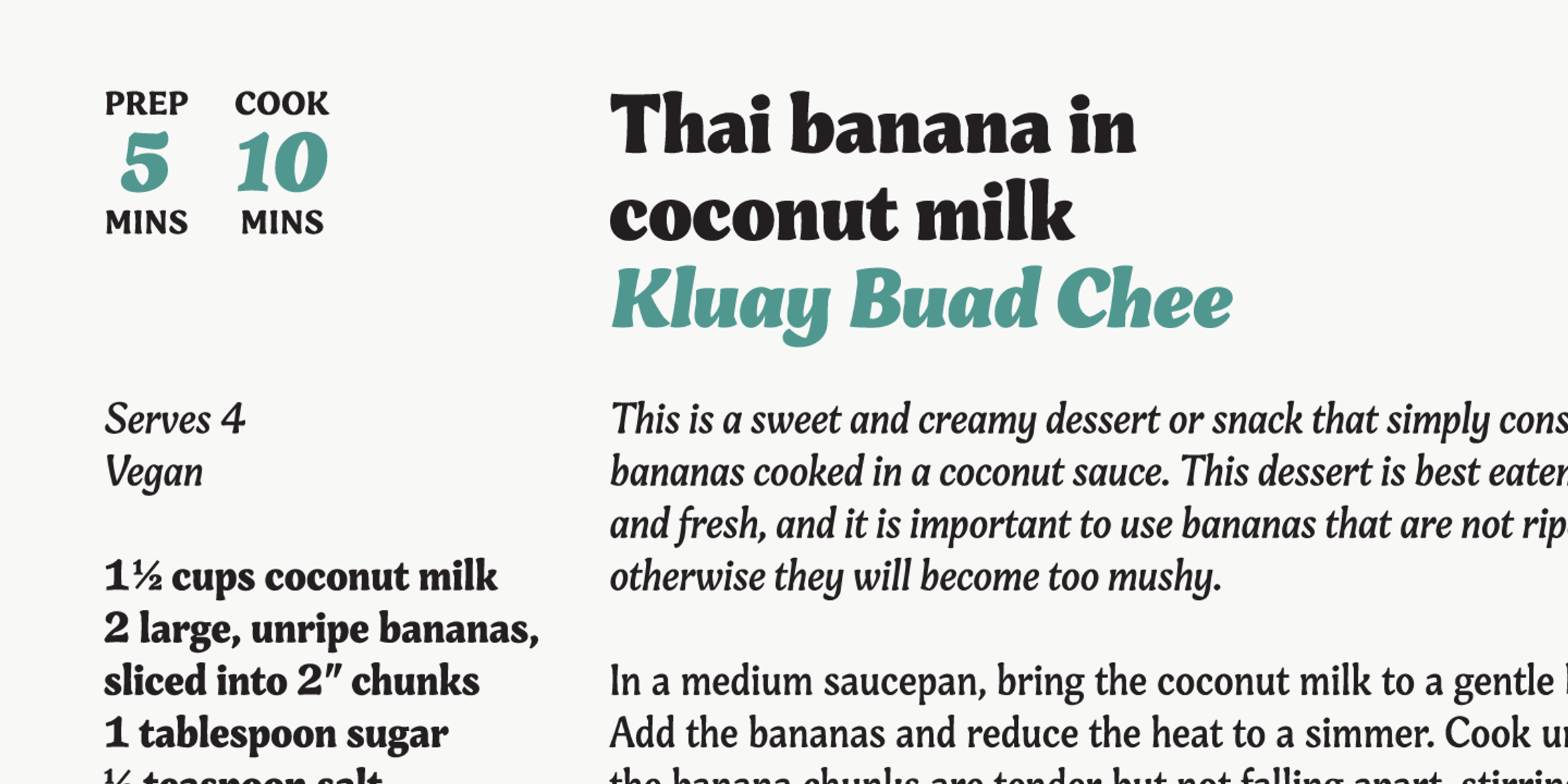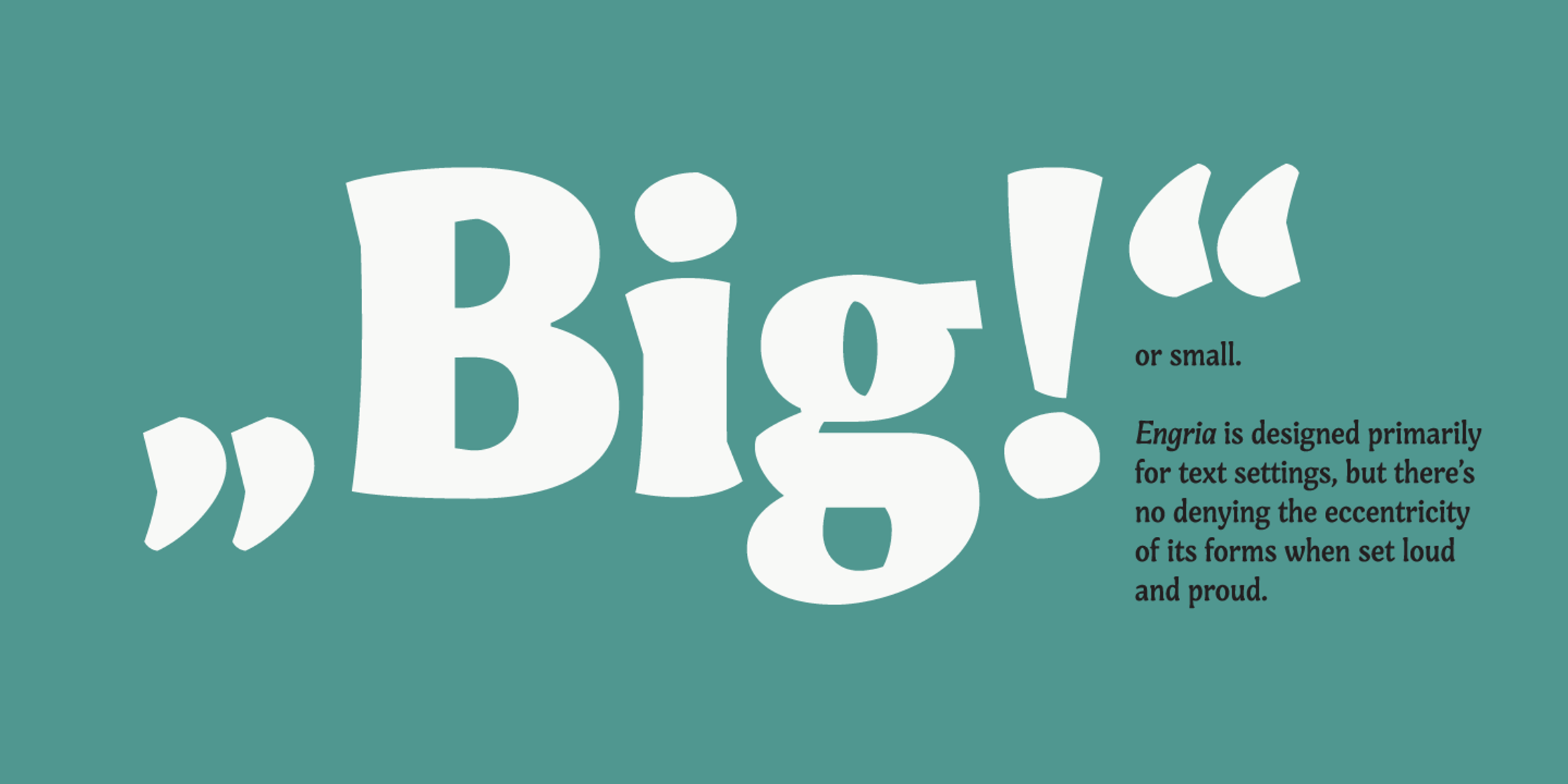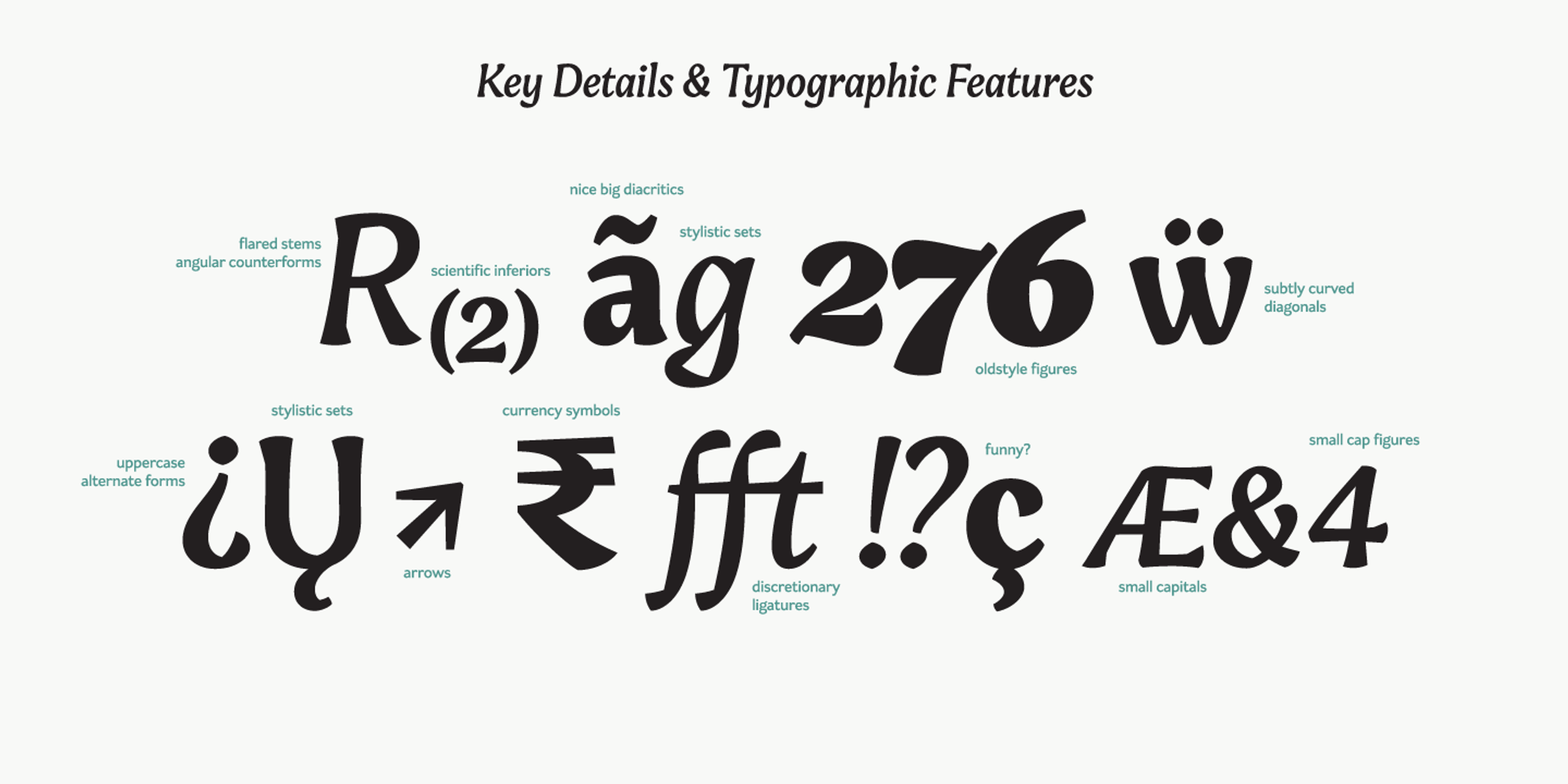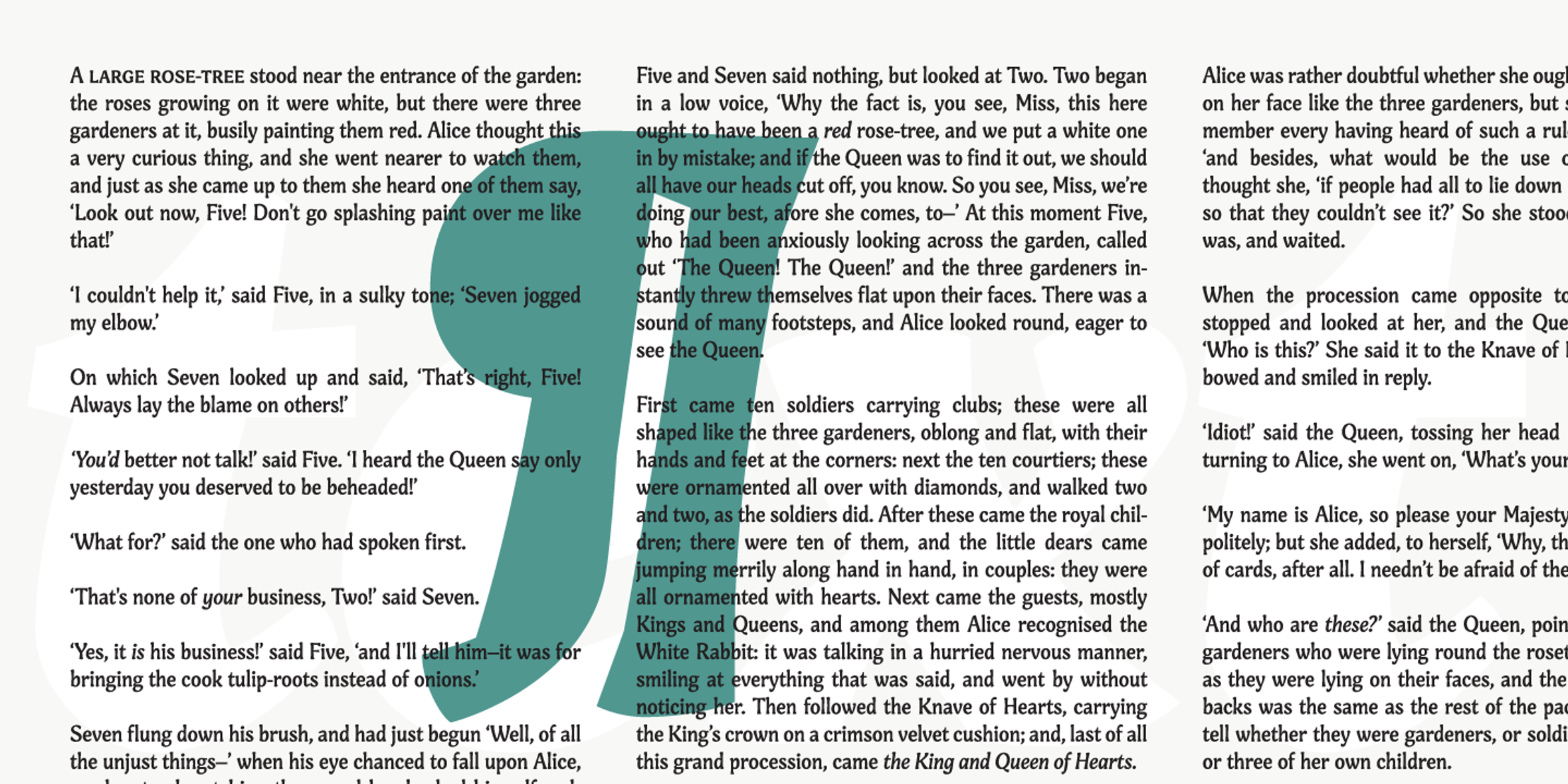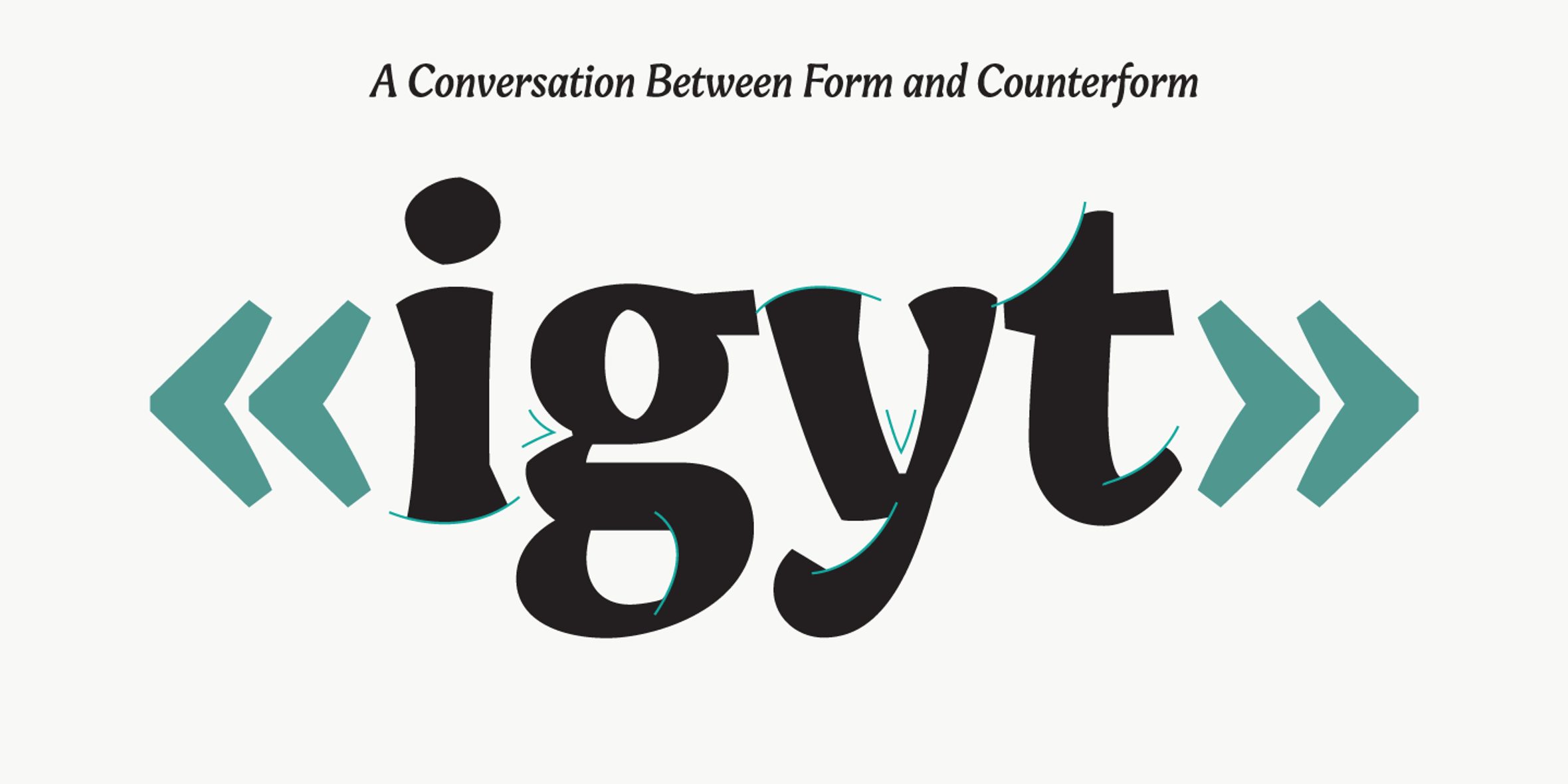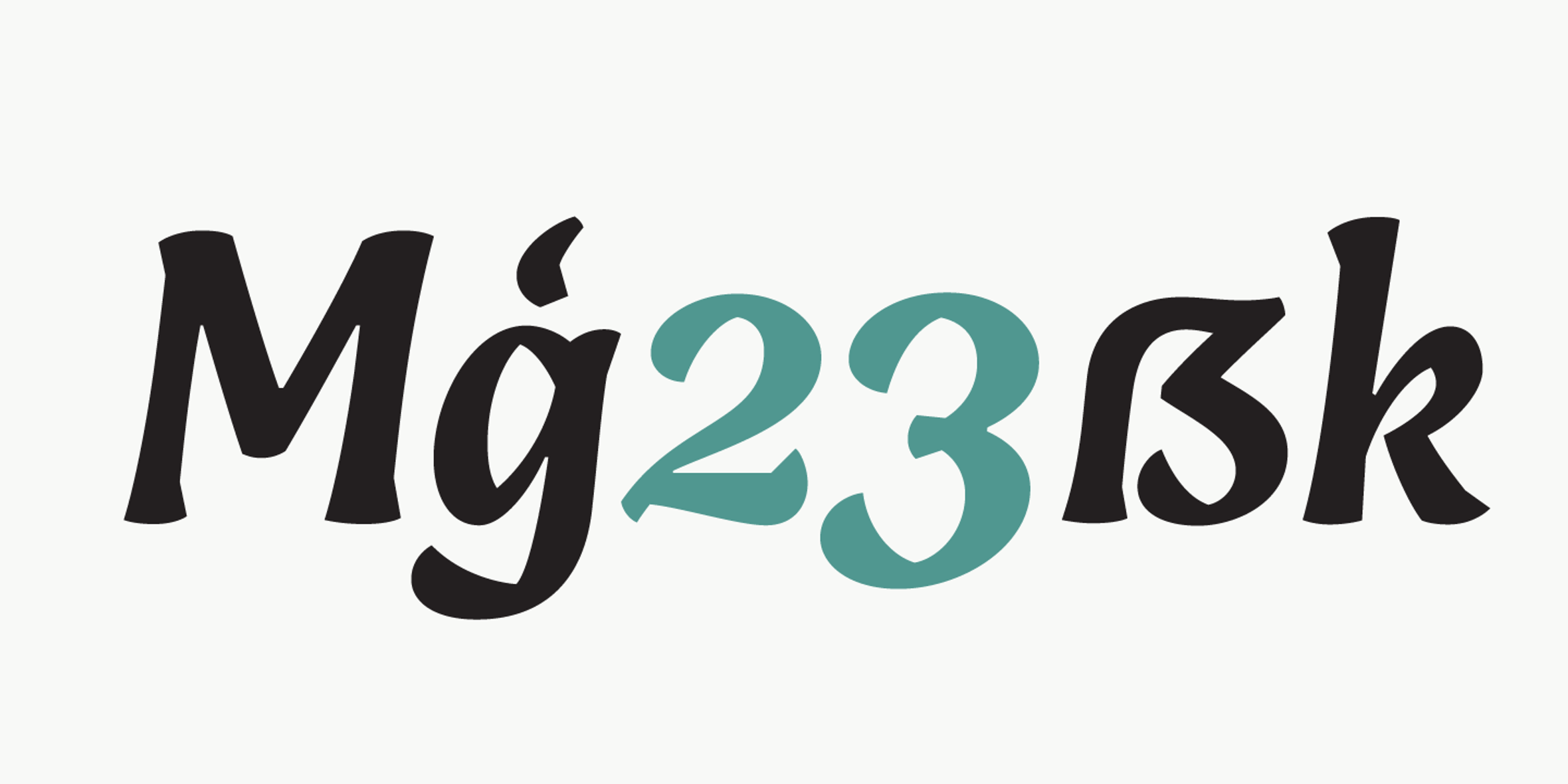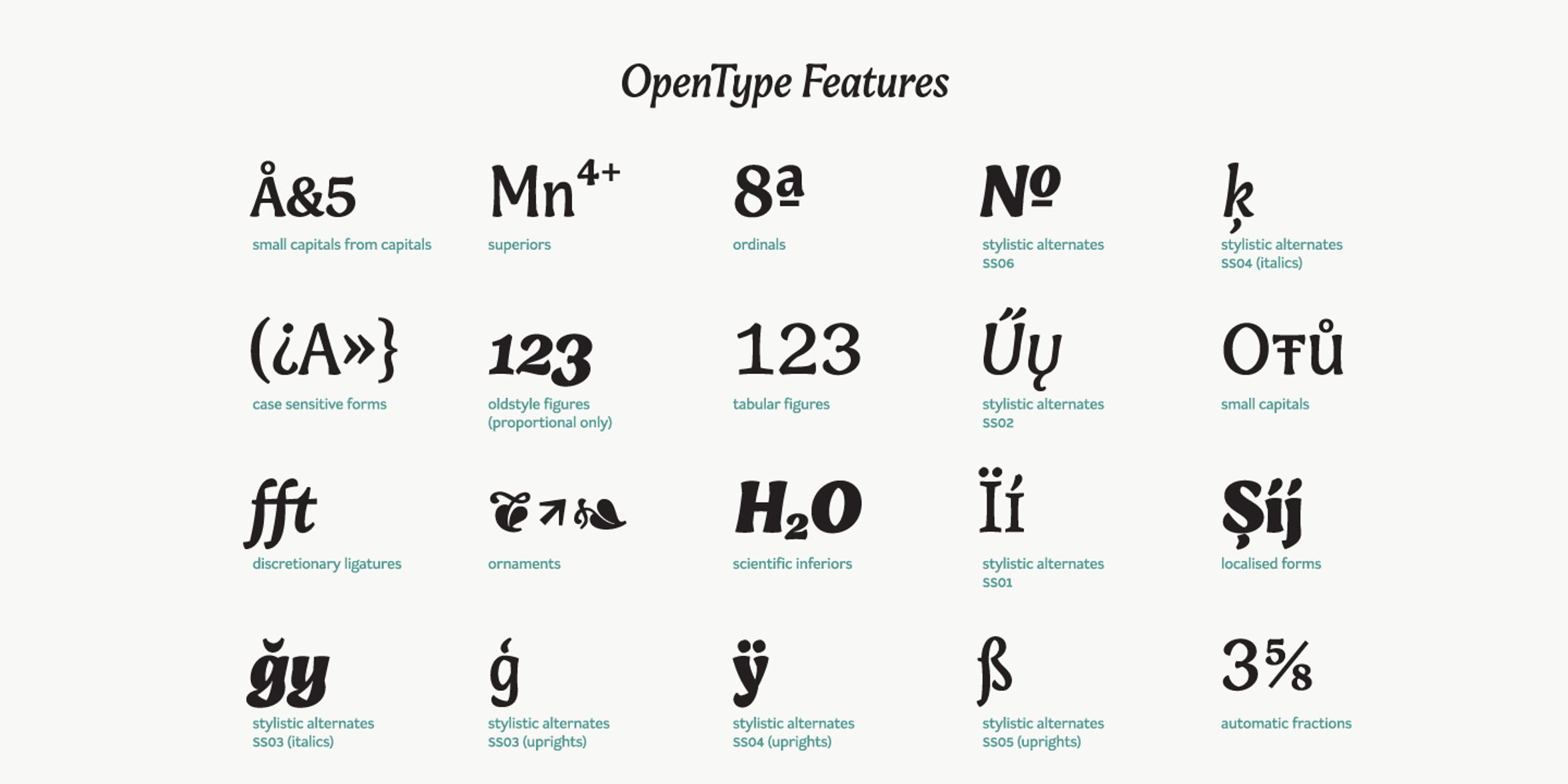
Engria Fonts
Engria
Engria nimbly treads the fine line between sans and serif. Its wedge-like serifs resemble engraved forms created by the splayed shape made by the bristles when clamped together. At the same time, it looks like a stressed, flared sans. This mixed approach lends a unique voice. Thanks to its characteristic details, it is highly legible in text sizes and shines in display sizes. Engria has four weights, with italics, and makes a perfect addition to any designer’s typographic arsenal.
- Discretionary Ligatures
- Fractions
- Old Style Numerals
- Ordinal Numerals
- Ornaments
- Small Capitals
- Small Capitals for Capitals
- Stylistic Alternates
- Superscript
- Tabular Numerals